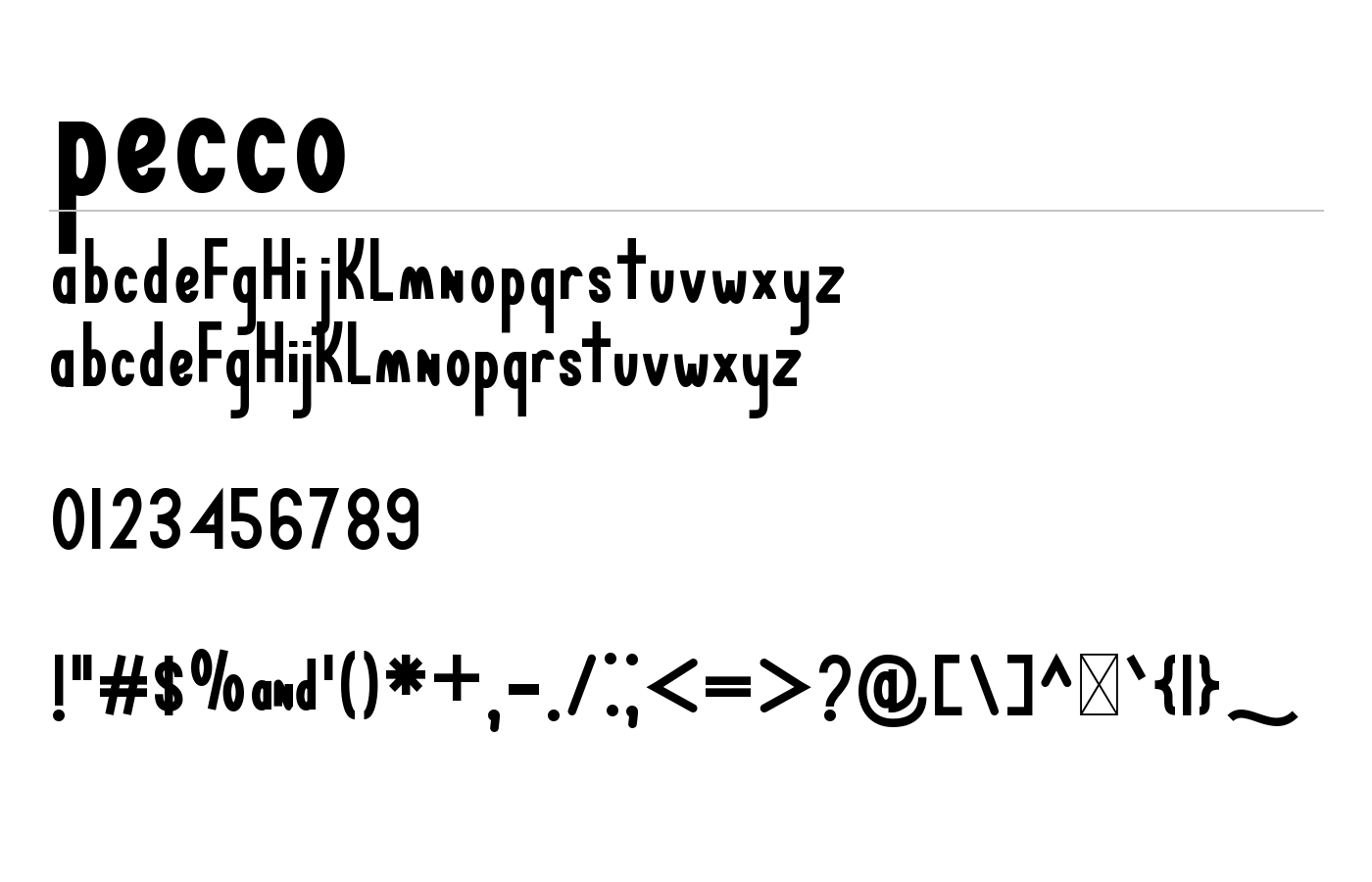
Pecco is a quirky sans serif font with narrow, tall letterforms that create a distinctive, playful look. Its uneven stroke widths and unique character shapes give it a hand-drawn, artistic vibe, making it well suited for creative projects, informal branding, and eye-catching headlines. This font works best where personality and originality are key, adding charm to posters, logos, and playful editorial designs.
Pecco Font
About Pecco Font